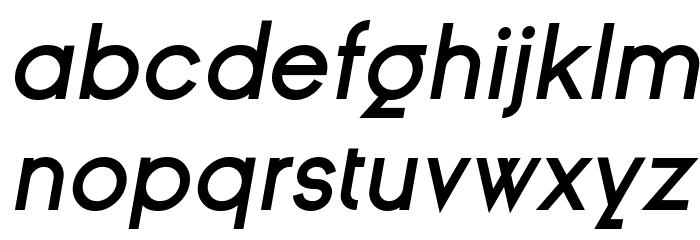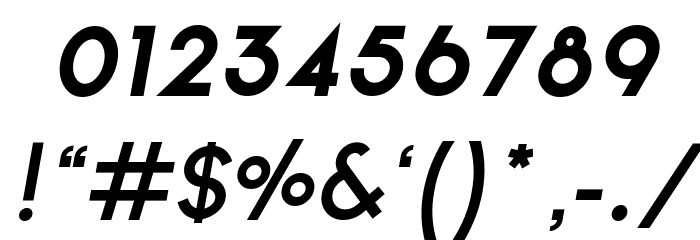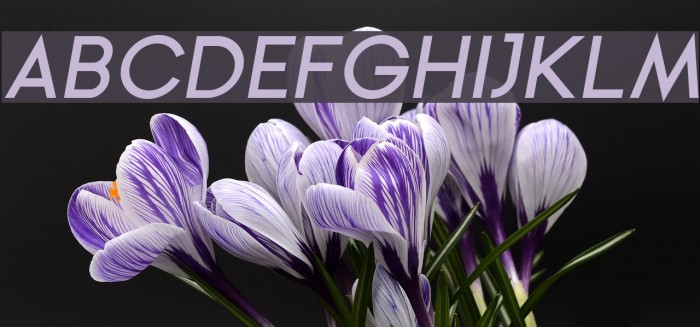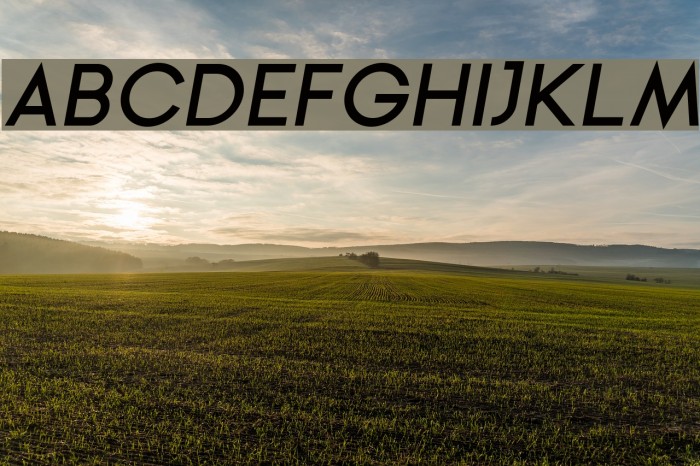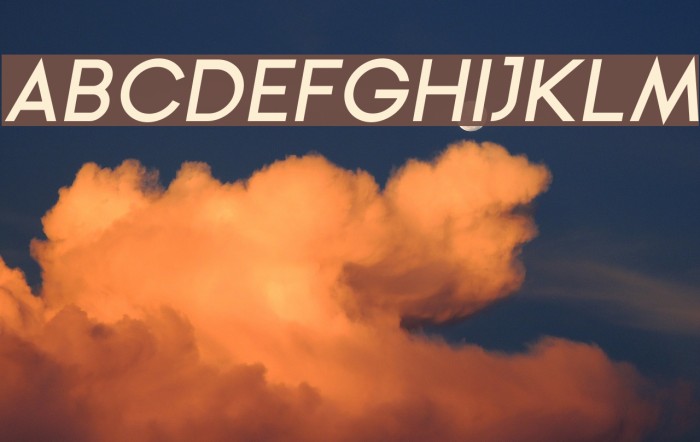
Ginora Sans Semi Bold Oblique Font
This font features a sleek and modern sans-serif design with a semi-bold weight, providing a strong yet elegant appearance. The oblique style adds a dynamic and forward-leaning character, making it suitable for contemporary design projects. The characters are well-proportioned with a consistent stroke width, ensuring readability and a clean aesthetic. The uppercase and lowercase letters maintain a harmonious balance, while the numerals and special characters are crafted to complement the overall style. This font's versatility makes it ideal for various applications, from digital interfaces to print media.
A modern, semi-bold, oblique sans-serif font with a clean and dynamic style.
- Proposed Projects: Ideal for branding, advertising, web design, and editorial layouts.